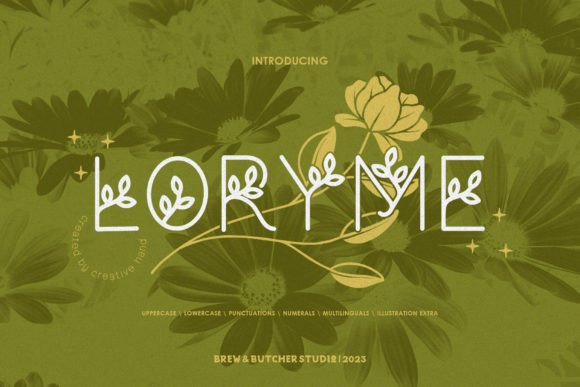
Prepare to be mesmerized by Loryme, a decorative font family that exudes both whimsy and sophistication. Designed by the talented brewandbutcher, Loryme flaunts simple yet captivating lines, giving your projects an irresistible charm. Unleash creativity and let your imagination bloom with this versatile font, ideal for flower shops, garden centers, and nature-inspired ventures. Loryme's distinct character adds a touch of whimsy to logos, branding, invitations, and social media posts, making them truly unforgettable. The boundless potential of Loryme is sure to captivate audiences and leave a lasting impact. With its unique style and remarkable adaptability, elevate your creative projects to new heights with Loryme. Dive into a world of visual delight and immerse yourself in the beauty of this font.
Loryme's captivating nature stems from its ability to transform ordinary words into captivating expressions of art. With its intricate details and elegant flow, this font breathes life into any project. Its versatility shines through in its wide range of applications, from alluring logos and branding to eye-catching social media posts and enchanting invitations. Loryme has the power to transform your creative visions into tangible masterpieces, leaving an indelible mark on your audience.
Embrace the beauty of nature and let Loryme guide you on an enchanting journey through the world of typography. This font is a true gem, a treasure waiting to be discovered by those who seek to make their words dance with grace and elegance. Don't let this opportunity pass you by. Embrace the allure of Loryme and unlock the endless possibilities it holds. Let your creativity flourish and witness the magic unfold as Loryme takes your projects to breathtaking new heights.
Harness the power of Loryme and watch your creative endeavors blossom. Its captivating charm and boundless versatility will leave you spellbound, yearning for more. Embark on this typographic adventure today and experience the transformative power of Loryme. Let your imagination soar, let your creativity dance, and let Loryme guide you to typographic greatness.